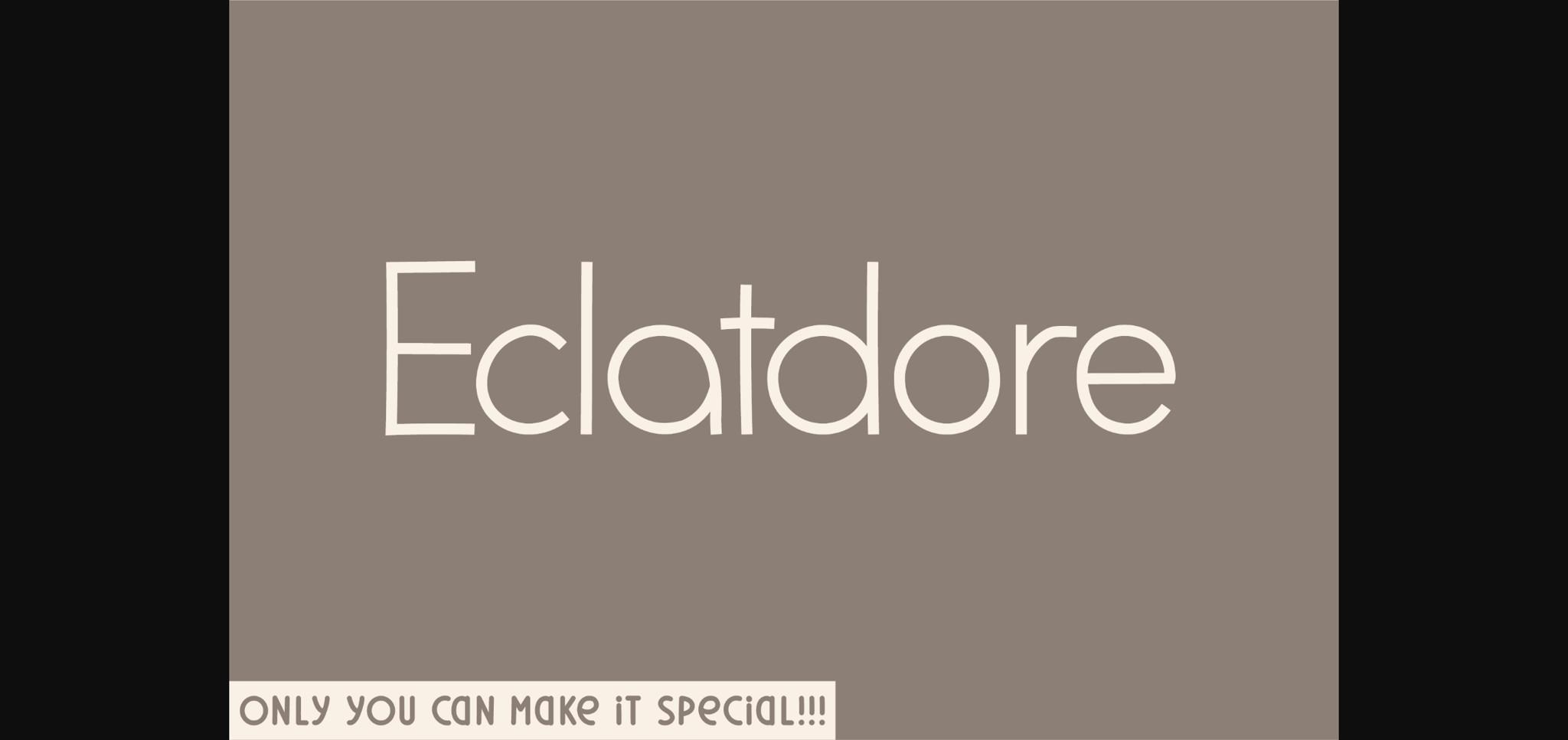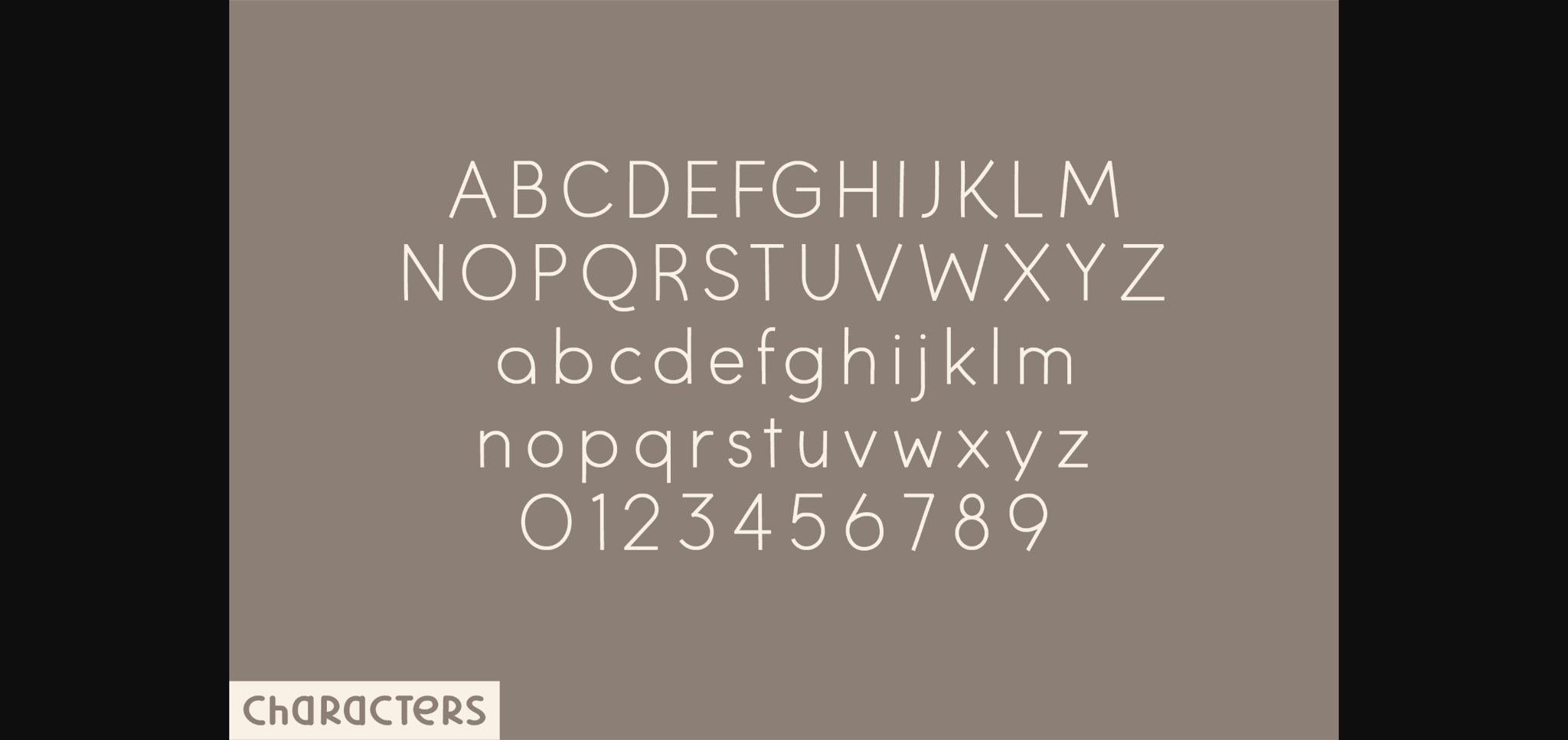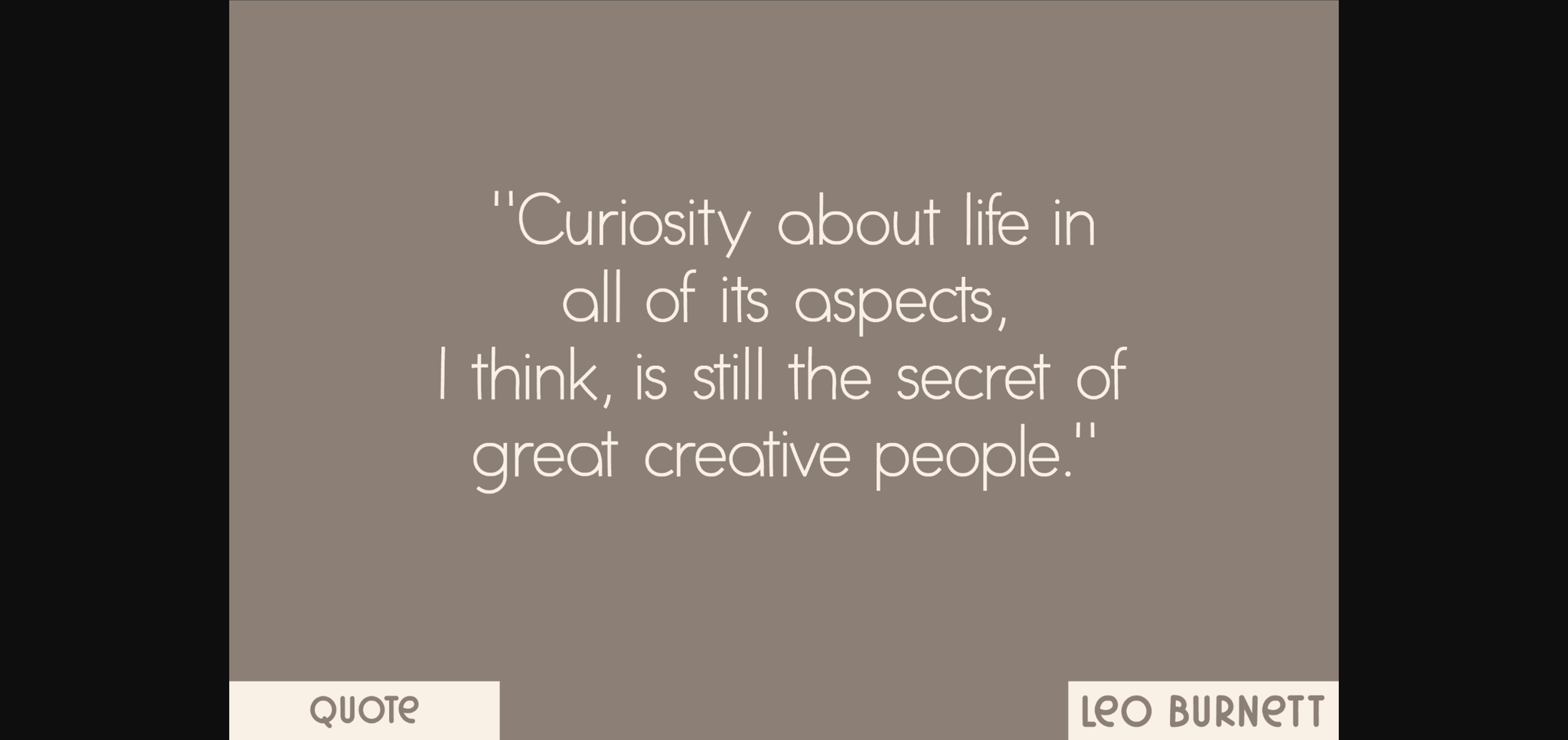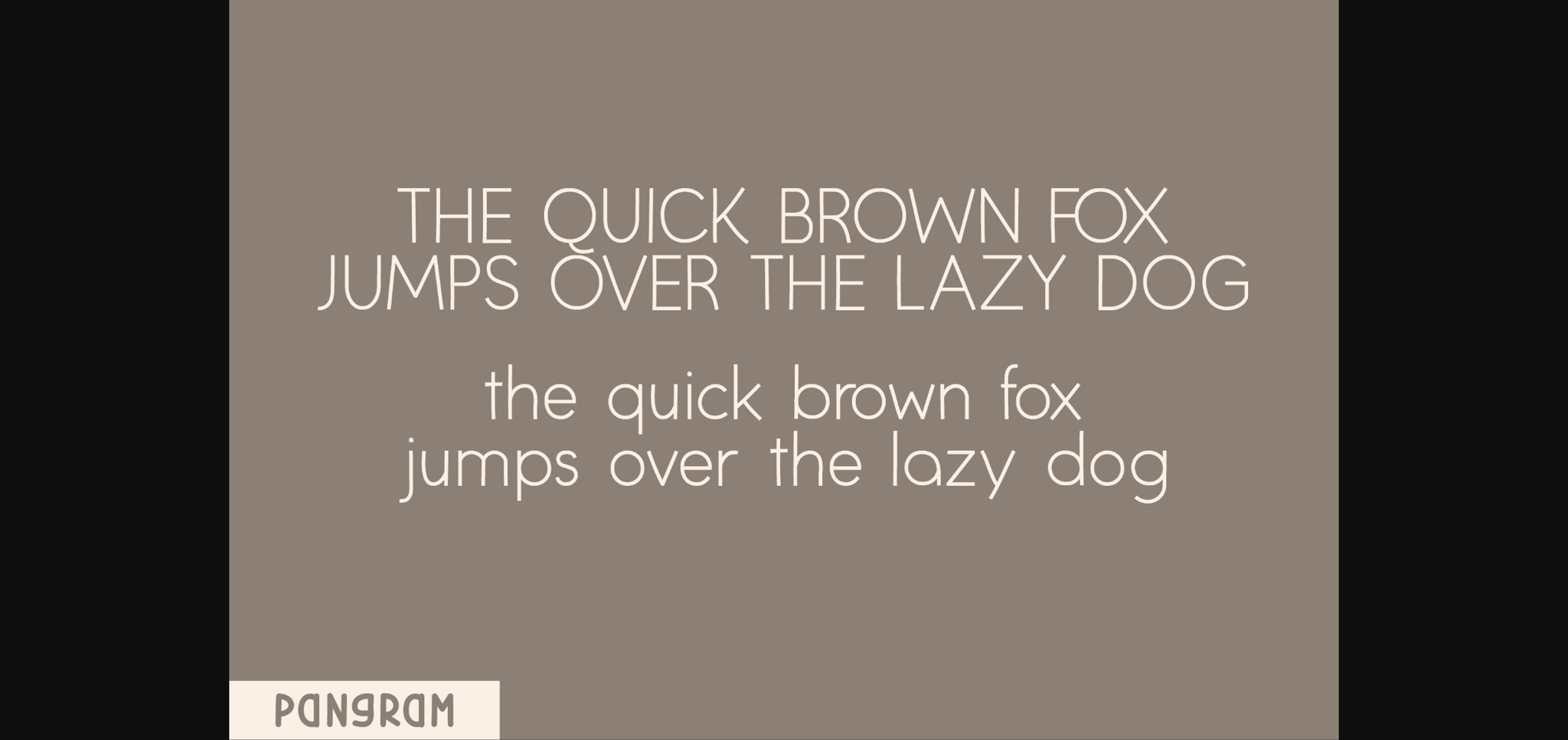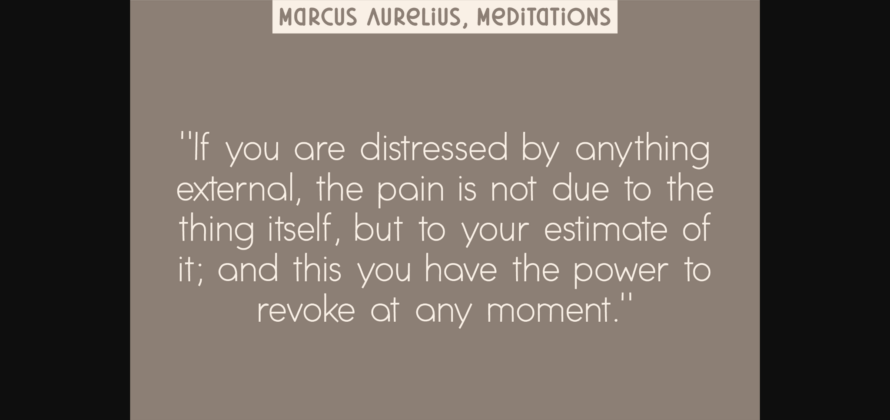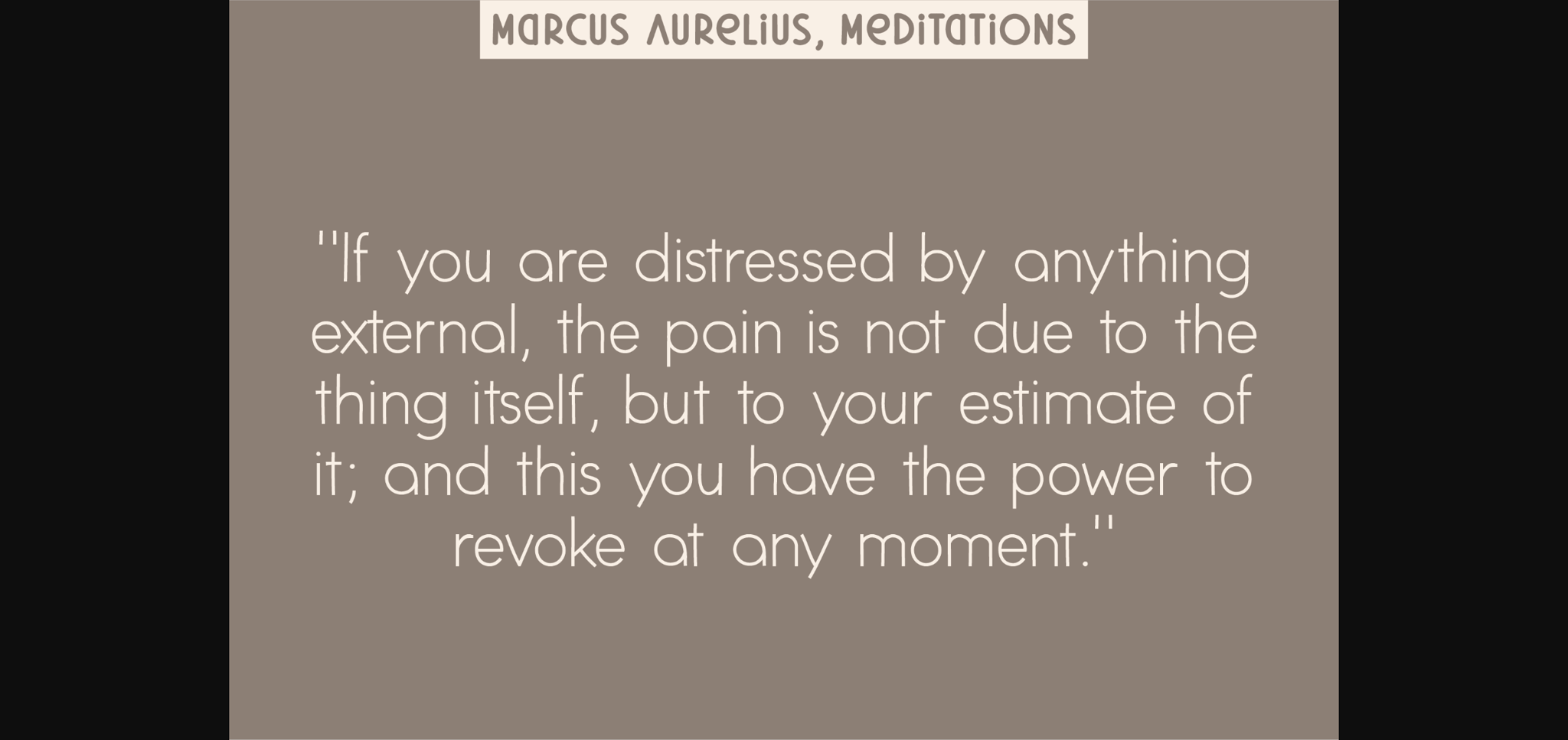
Eclatdore Font
About Eclatdore Font
Introducing Eclatdore, a meticulously handcrafted sans serif font. Elegant in its simplicity, it marries the artistic aesthetics of hand-drawn characters with the precision of professional typography. Offering a delightful balance of uppercase, lowercase, numbers, and functionally rich letters, Eclatdore is defined by the distinctive finish at each letter’s end, lending a pleasing yet assertive character. Its universal appeal enables it to grace any design environment seeking standout originality, making it your perfect partner for creating eminently memorable impressions.